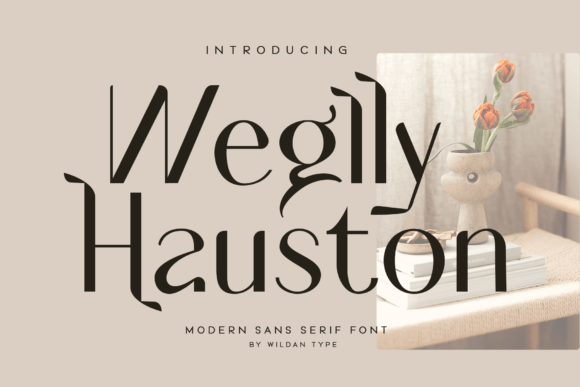
Introduce the Weglly Hauston Font, a modern, simple, and striking sans serif font that will ignite your creativity and elevate your designs. Crafted by the talented Wildan Type, this font is a visual masterpiece that embodies elegance and sophistication.
With its clean lines, smooth curves, and sharp angles, Weglly Hauston exudes a timeless charm that will leave a lasting impression on your audience. Its versatility knows no bounds, making it the perfect choice for a wide range of projects, from logos and branding to fashion and editorials.
Picture your brand's logo, emblazoned with the Weglly Hauston Font, standing out boldly and memorably. Its distinct character will command attention and create an unforgettable brand identity that sets you apart from the competition.
Imagine your designs reaching new heights with Weglly Hauston as your trusted companion. Its crisp and legible letterforms will ensure your messages are communicated with clarity and impact, leaving a deep and lasting impression on your readers.
Step into the world of Weglly Hauston and unleash your creative potential. Let this font be your muse, inspiring you to create designs that captivate and enthrall. Its versatility and timeless appeal will transform your projects into works of art that resonate with your audience and leave them yearning for more.
Don't let mediocrity hold you back. Embrace the Weglly Hauston Font today and embark on a journey of creative exploration that will redefine your design horizons. Elevate your projects to the highest level and leave an indelible mark on the world.